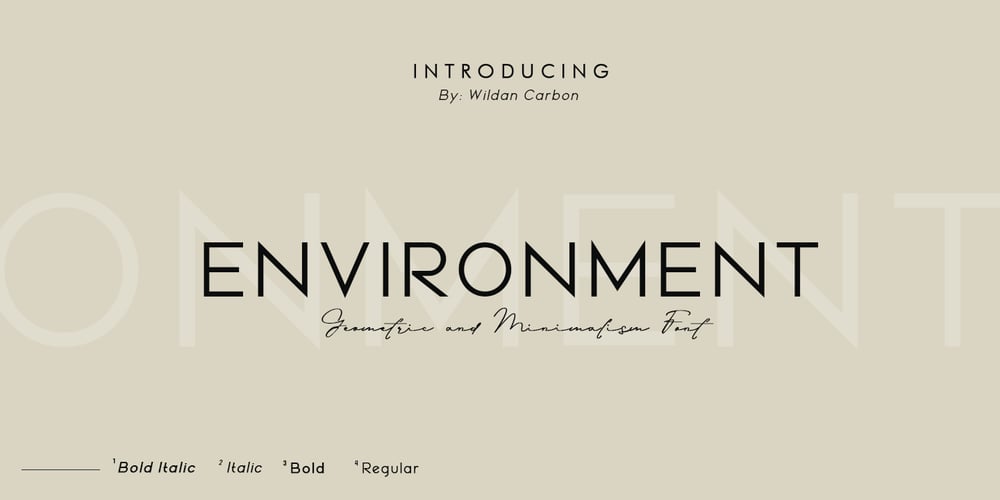
Environment
Environment font
Environment Font Family was designed by Wildan Carbon and published by Wildan Type. Environment contains 4 styles and family package options. Environment is an geometric, minimalism and elegant sans serif font. It perfectly used for product presentation, elegant logo design, packaging or invitation cards Four weights, four very different personalities.Environment Bold ItalicEnvironment ItalicInvorenment RegularFeaturesFour weights/ Numbers & Punctuation / Extensive Language Support/Alternate